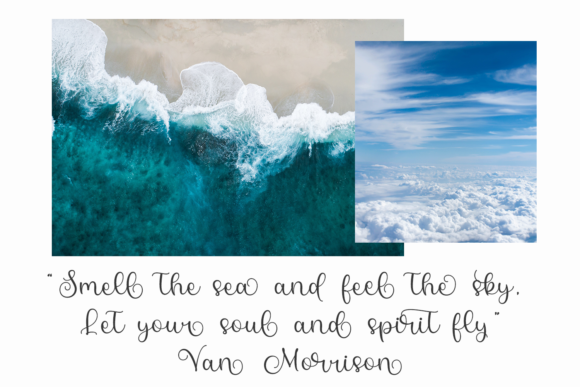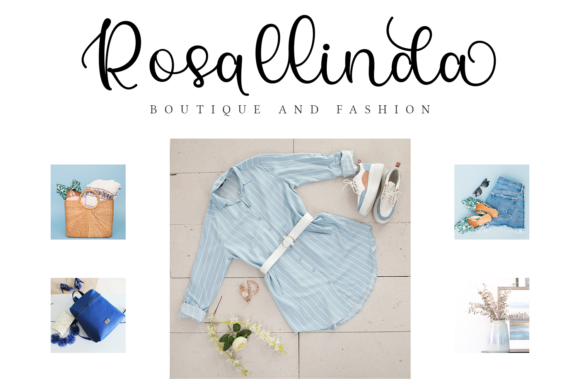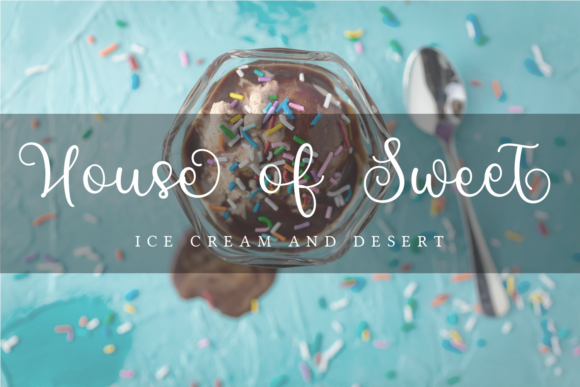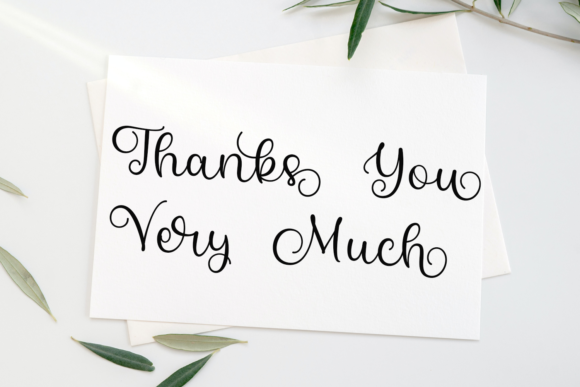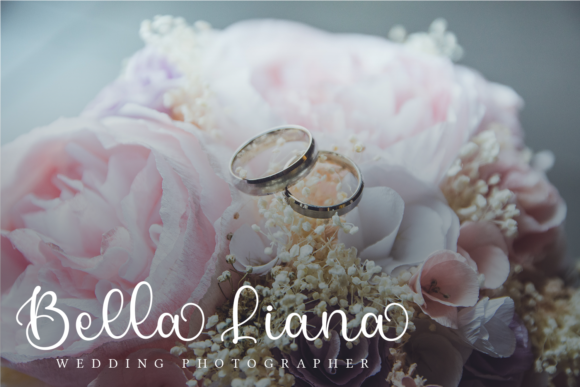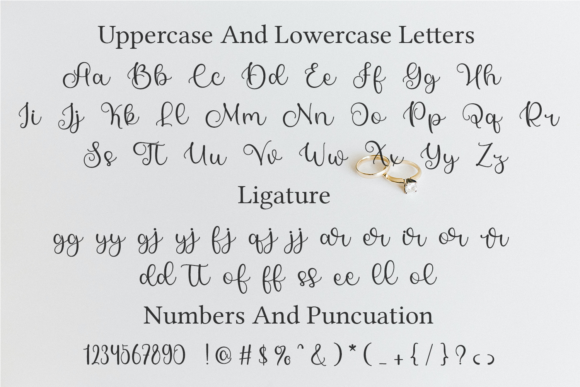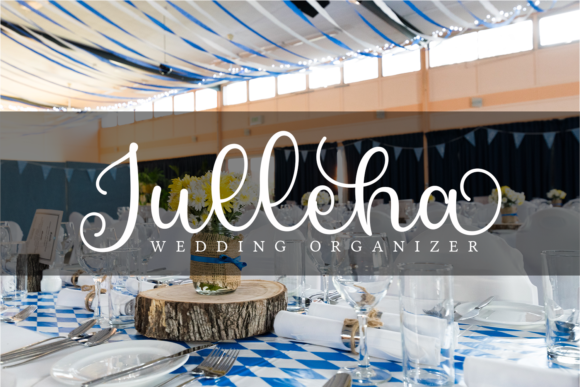
About Hello Rachel Font
Hello Rachel is a lovely script font featuring charming, playful characters that seem to dance along the baseline. Add this font to your most creative ideas, and notice how it makes them stand out! Hello Rachel is PUA encoded which means you can access all of the glyphs and swashes with ease!